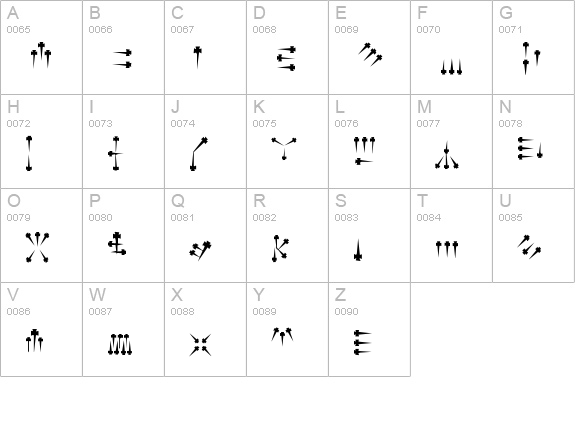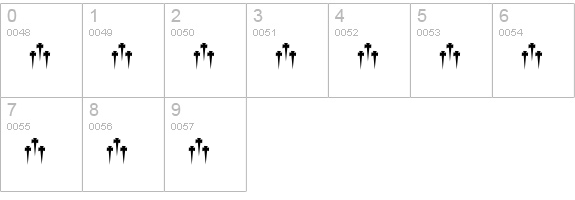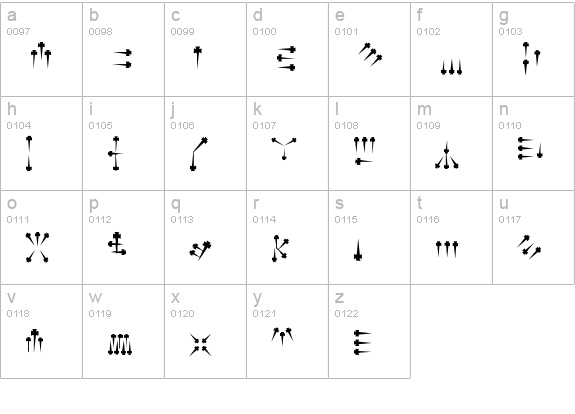
Introducing the captivating Alphabet of Daggers font, a stunning display typeface that exudes elegance and sophistication. Each letter is intricately designed with sharp edges and intricate details, reminiscent of finely crafted daggers. The font strikes the perfect balance between modernity and tradition, making it a versatile choice for a wide range of design projects. The Alphabet of Daggers font is not only visually striking but also highly functional, making it ideal for headlines, titles, logos, and more. Its unique aesthetic will add a touch of drama and flair to any design, making a bold statement that is sure to capture attention. Best of all, the Alphabet of Daggers font is available for free download at FontsMarket.com. Whether you're a seasoned designer looking to add a fresh element to your work or a newcomer eager to experiment with new fonts, this typeface is sure to inspire and delight. Download it today and unleash your creativity with the Alphabet of Daggers font.